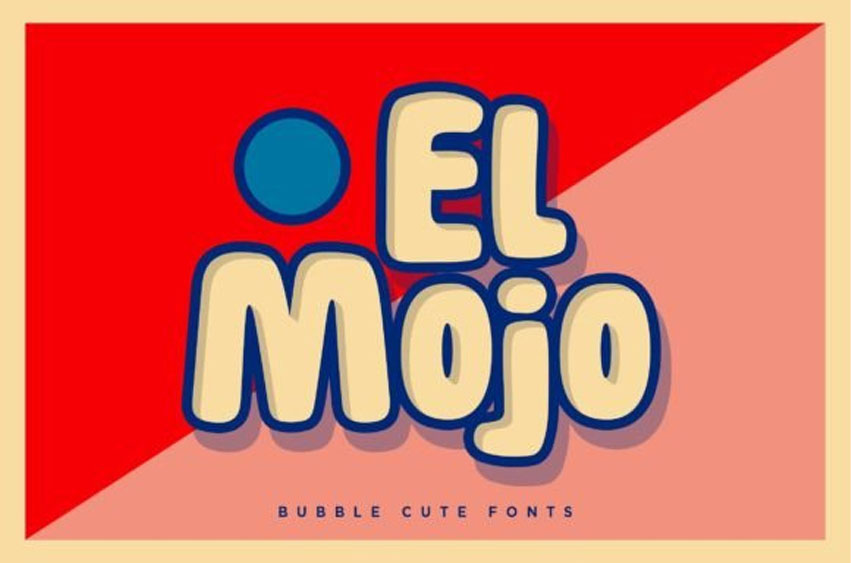
El Mojo Font
El Mojo Font is sweetener in a font form for your visual topping. Smooth like butter and sweet as your favorite cake.
Perfectly fit for a pop design, kids’ book, food and beverages, ice cream branding, snacks, logo, branding, poster, book cover, you name it.